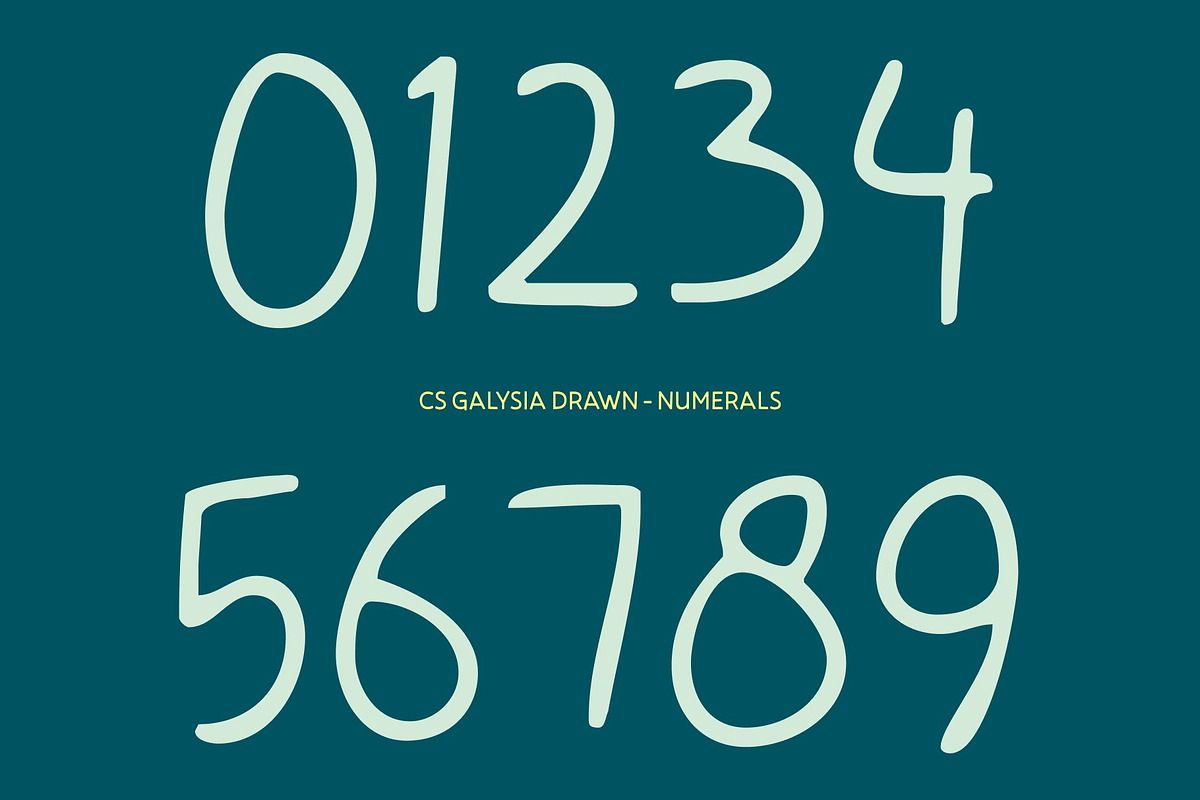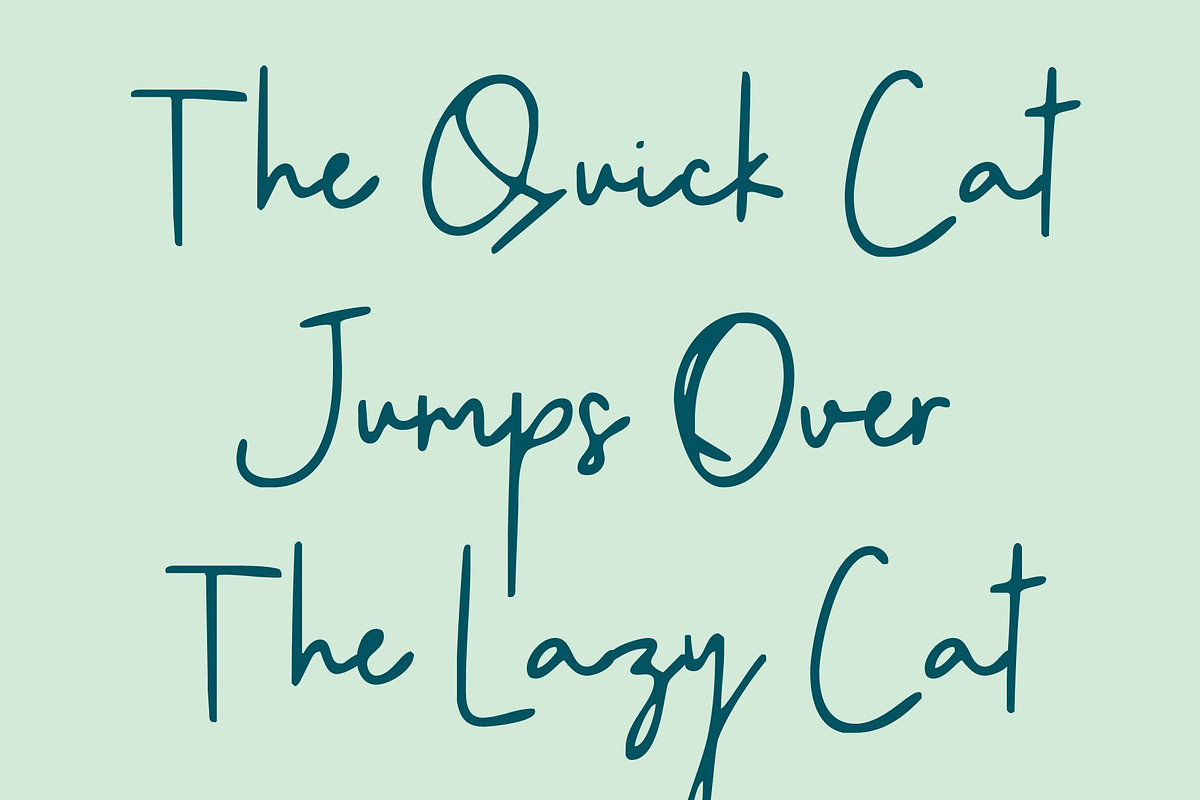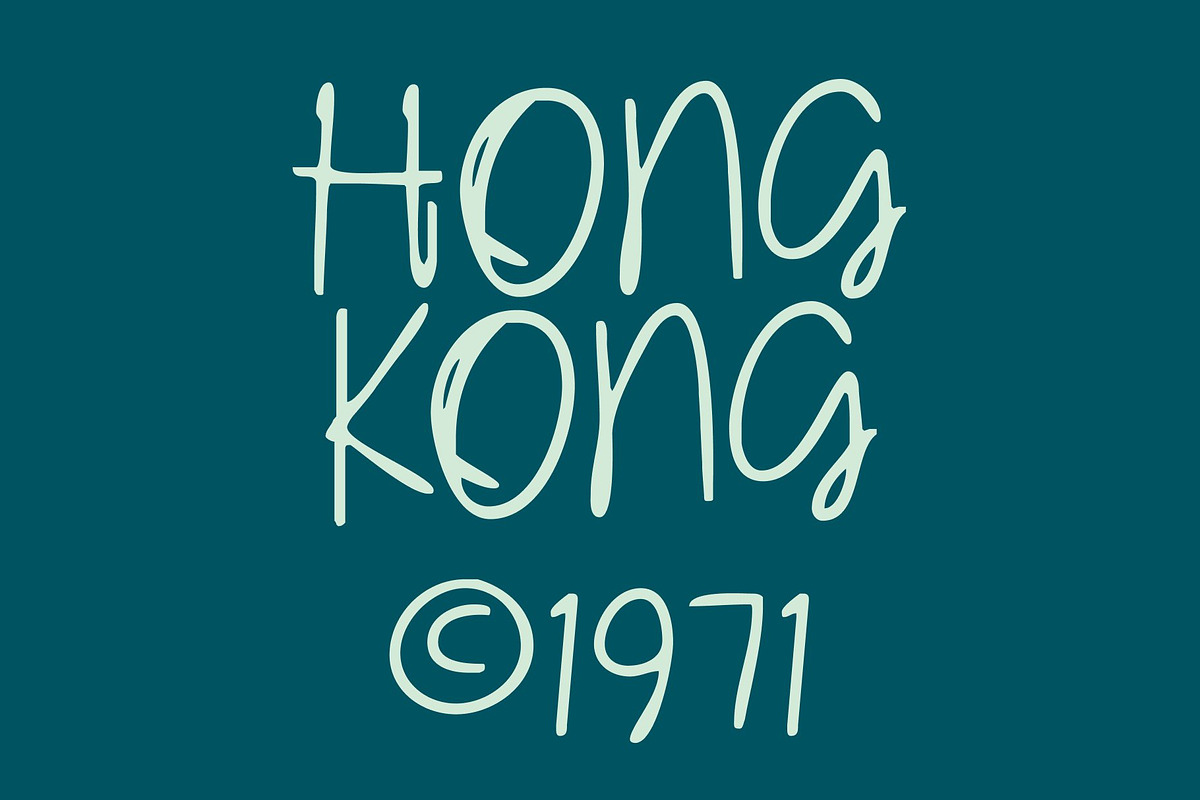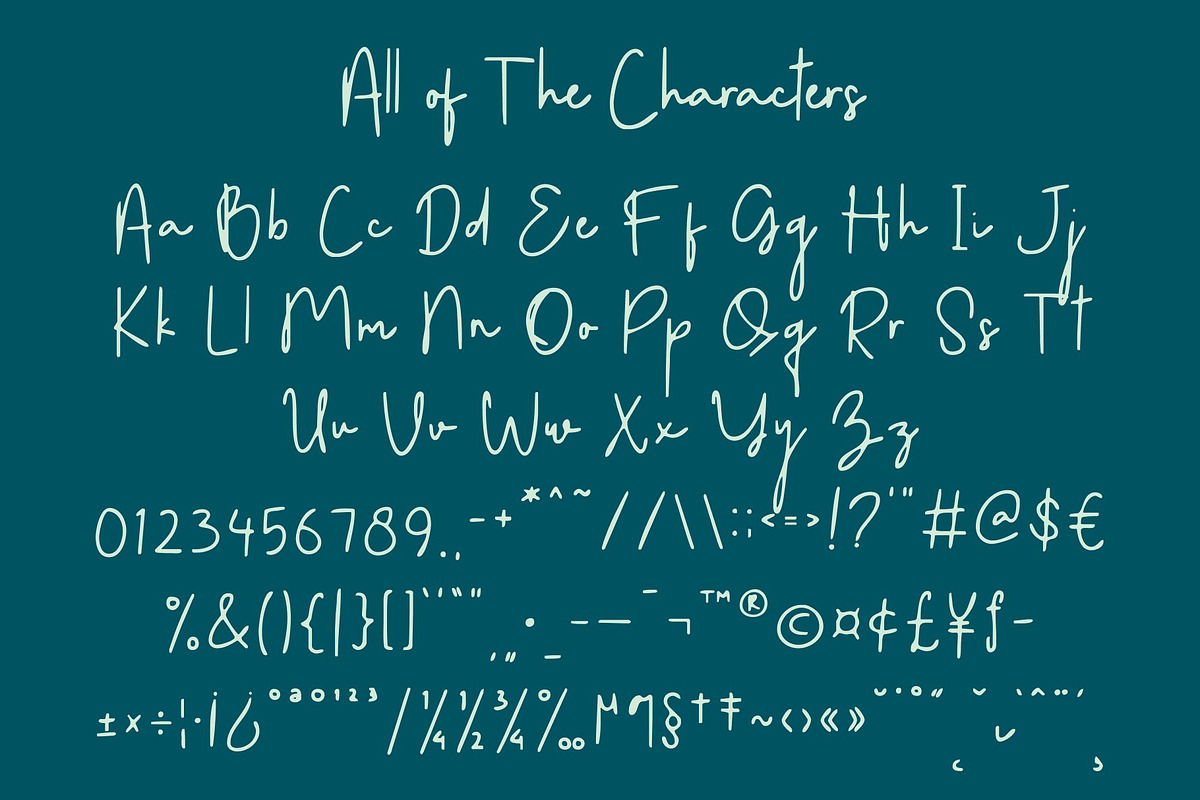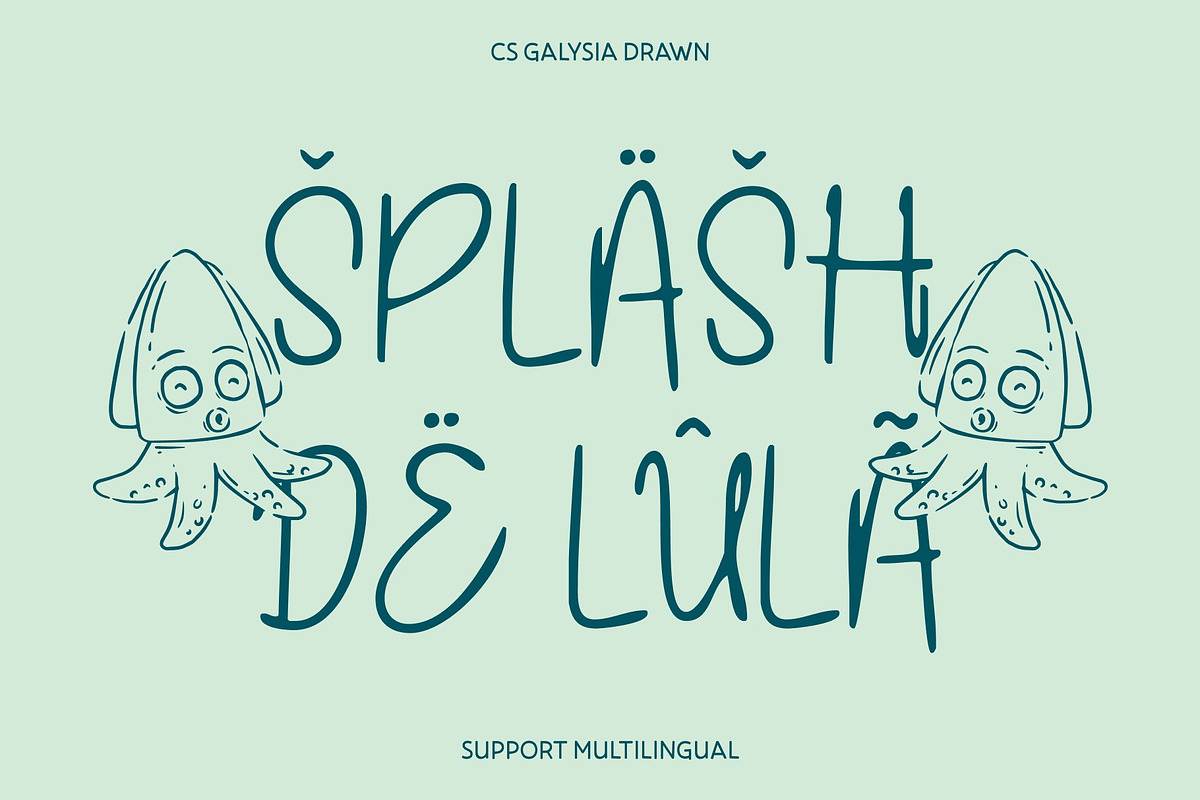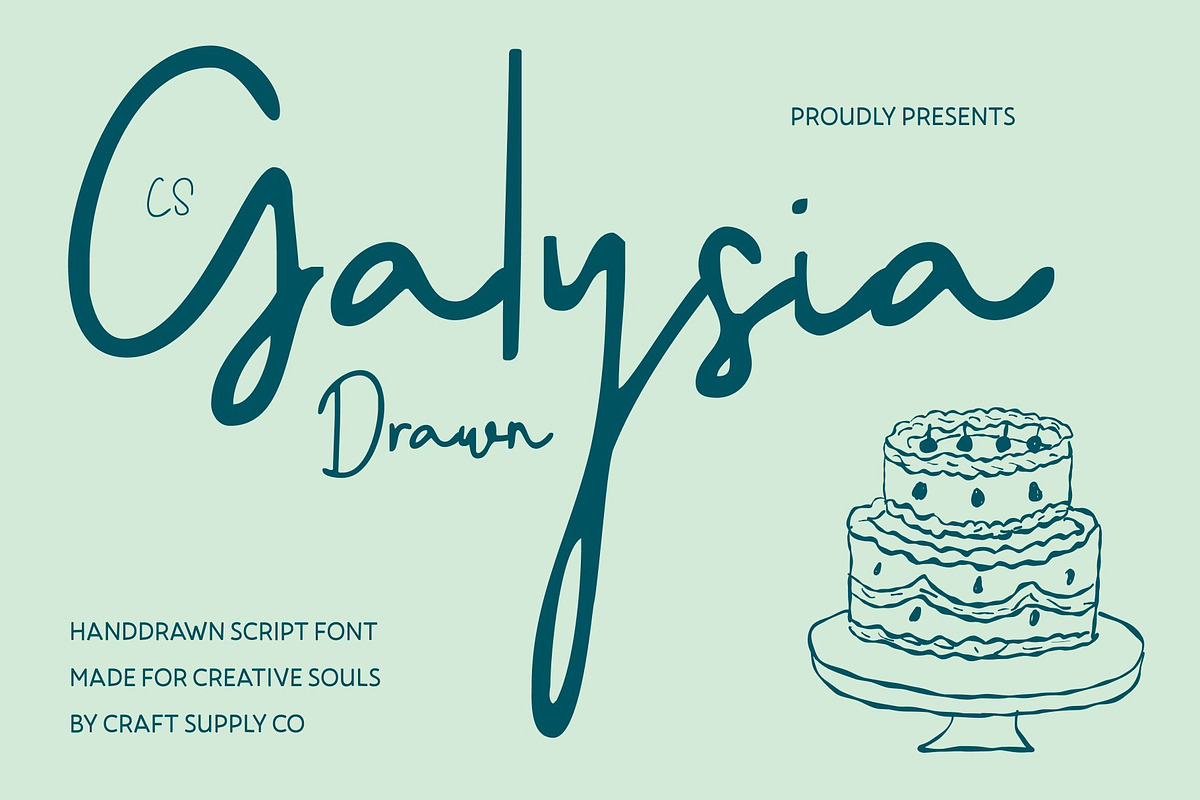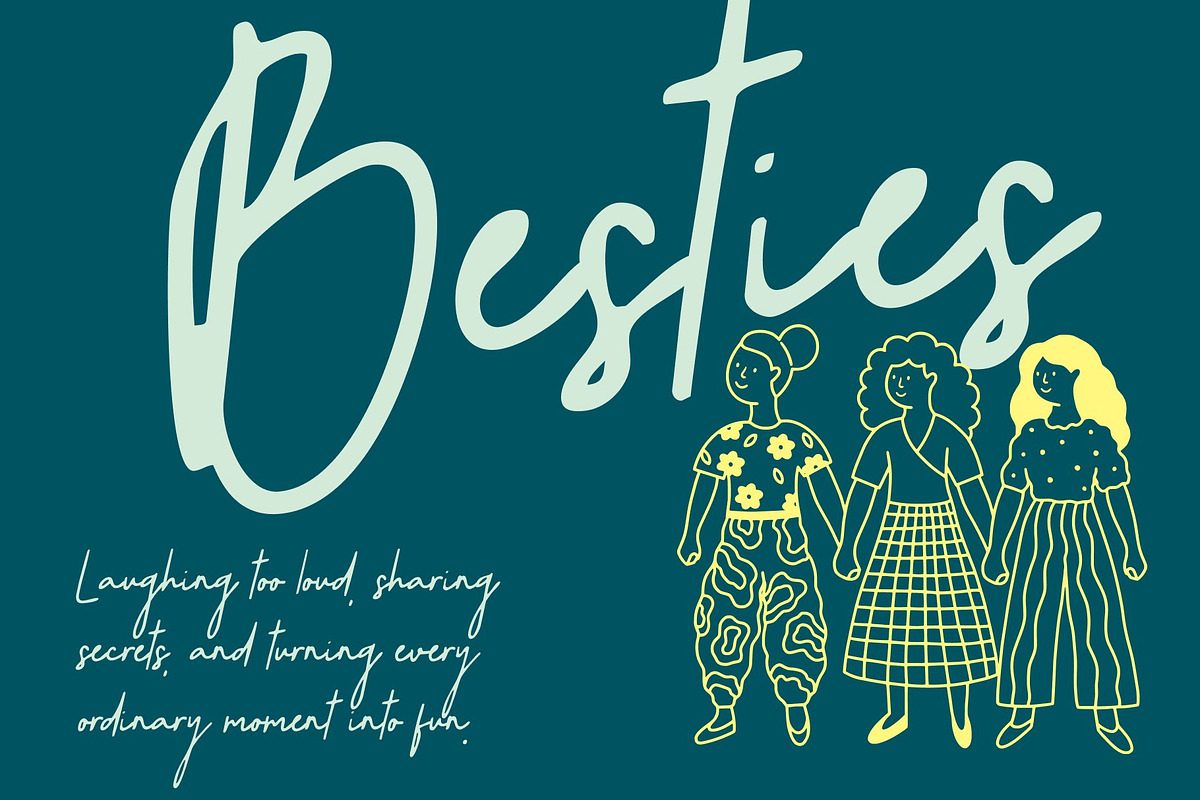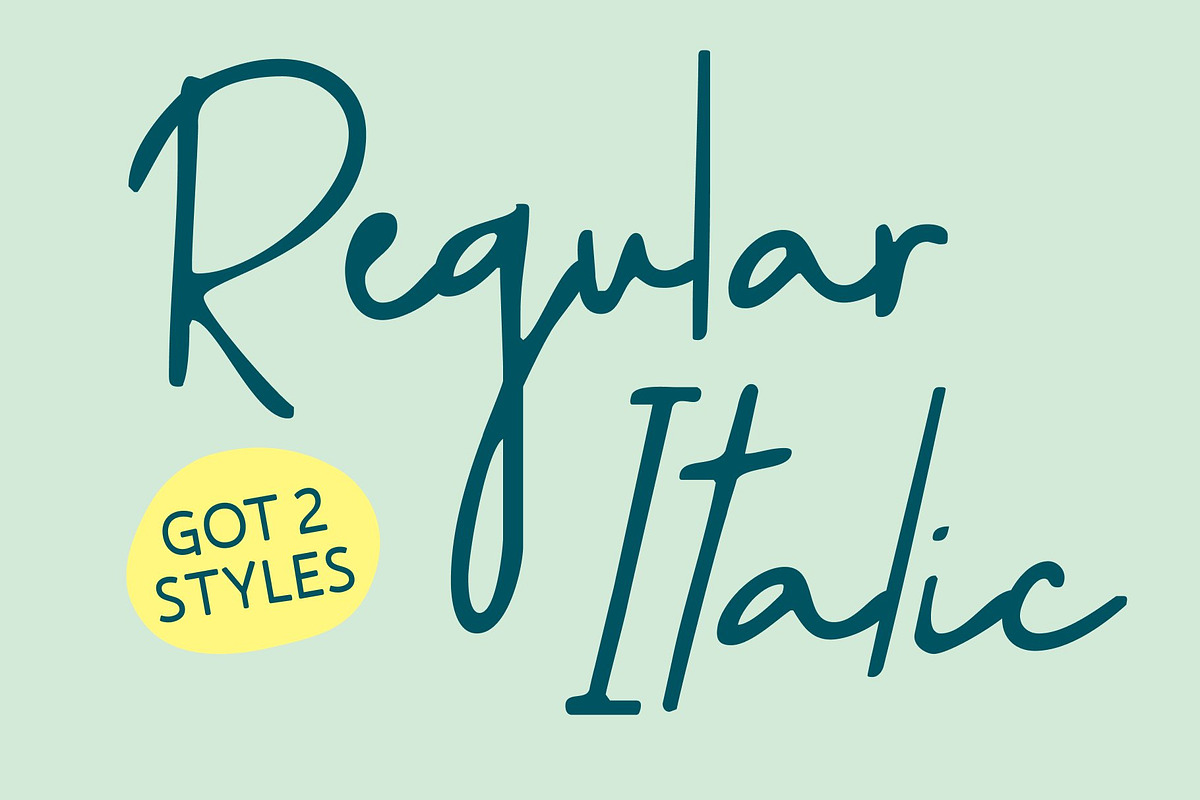
CS Galysia Drawn
CS Galysia Drawn – Romantic Handwritten Script with Mediterranean Elegance
Mediterranean-Inspired Flow and Grace This is a handwritten script font that captures the warmth, charm, and fluidity of Mediterranean handwriting. Its flowing, naturally connected strokes give every letter a graceful, elegant motion, evoking the intimacy of a carefully penned letter. The drawn effect adds subtle texture, giving the font a unique, personal touch that feels both authentic and refined.
Romantic and Sophisticated Character This font balances soft curves with thoughtful contrast, creating a script that is expressive yet polished. Its romantic spirit and artisanal detailing make it ideal for designs that require emotional depth, delicate beauty, and a sense of hand-crafted artistry.
Perfect for Luxury Branding and Lifestyle Projects This font excels in high-end applications, from wedding invitations and boutique packaging to premium branding and editorial layouts. The combination of its flowing elegance and natural drawn texture conveys both sophistication and personal warmth, making your designs feel authentic and memorable.
Versatile and Timeless Design Whether used for logos, stationery, social media graphics, or digital campaigns, this font adapts effortlessly to multiple formats. Its graceful script and Mediterranean-inspired charm ensure every project embodies style, refinement, and enduring elegance.